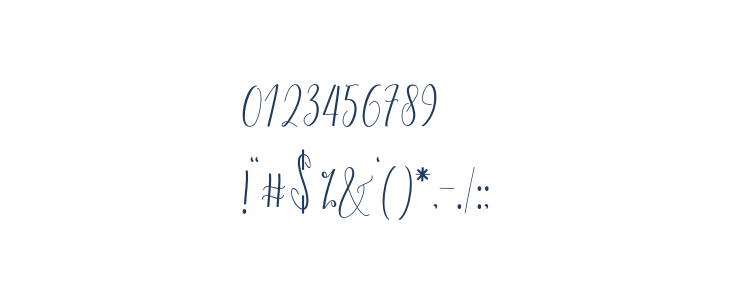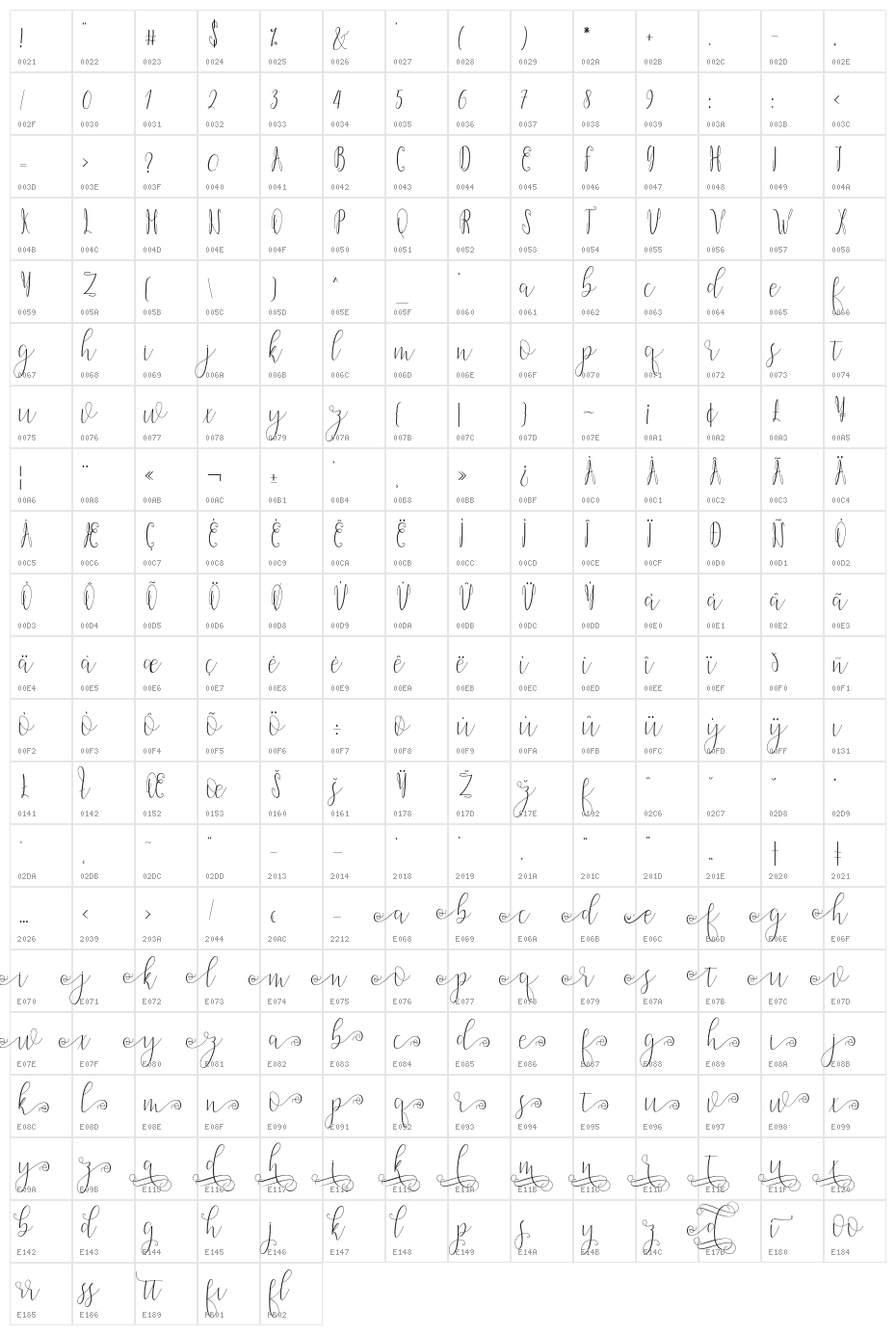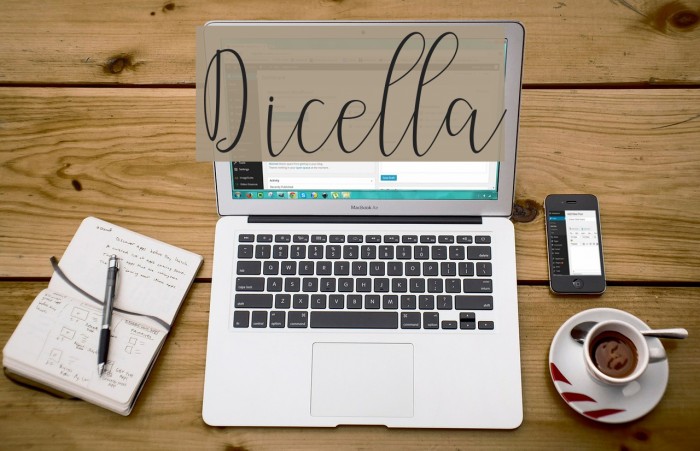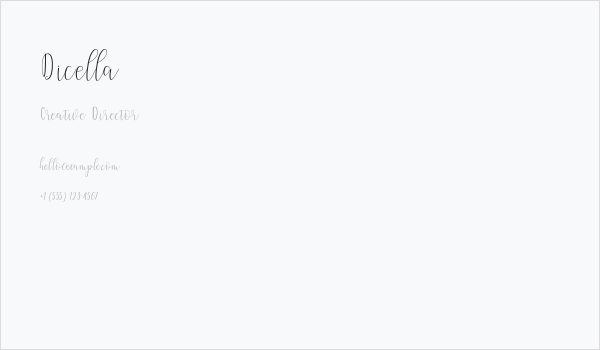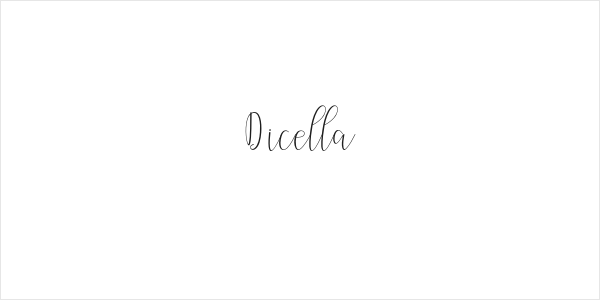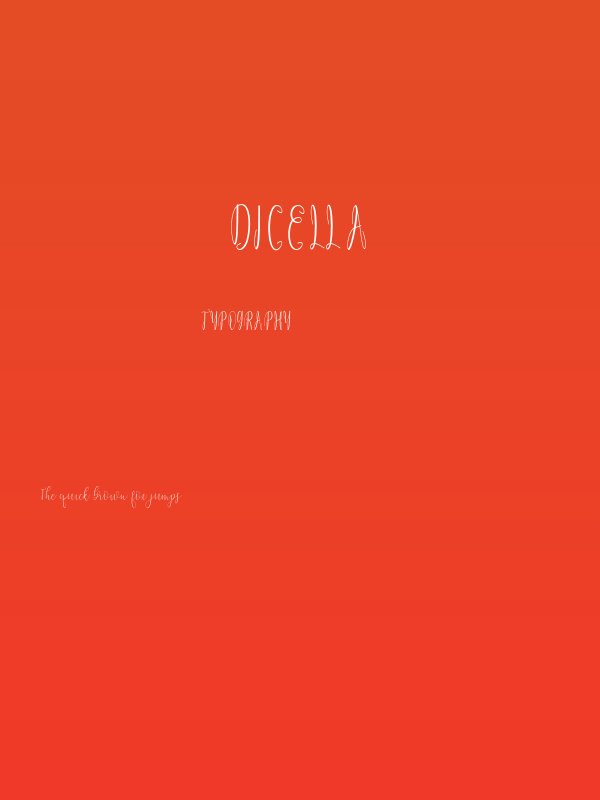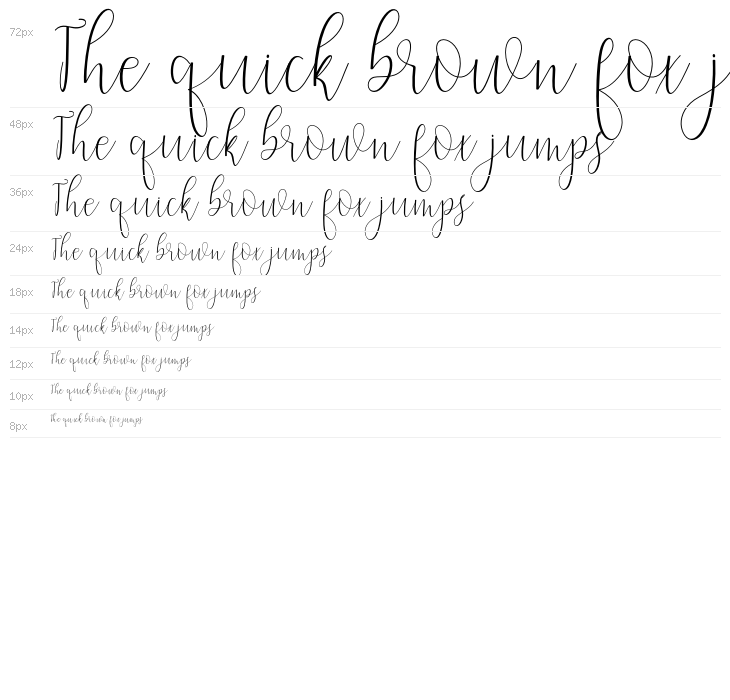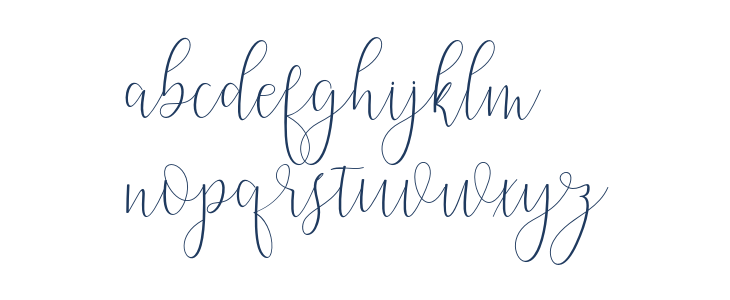
Dicella Font
Dicella Description
This elegant script font features flowing, interconnected letters with a graceful, handwritten style. The uppercase characters are tall and slender, with delicate loops and swirls that add a touch of sophistication. The lowercase letters maintain a consistent flow, enhancing the cursive appearance. Numbers are styled to match the letters, with similar loops and curves. Special characters are designed to complement the overall aesthetic, ensuring a cohesive look. This font exudes a sense of elegance and refinement, making it ideal for formal invitations, branding, and other projects that require a touch of class.
| Proposed Projects | Ideal for wedding invitations, elegant branding, greeting cards, and luxury product packaging. |